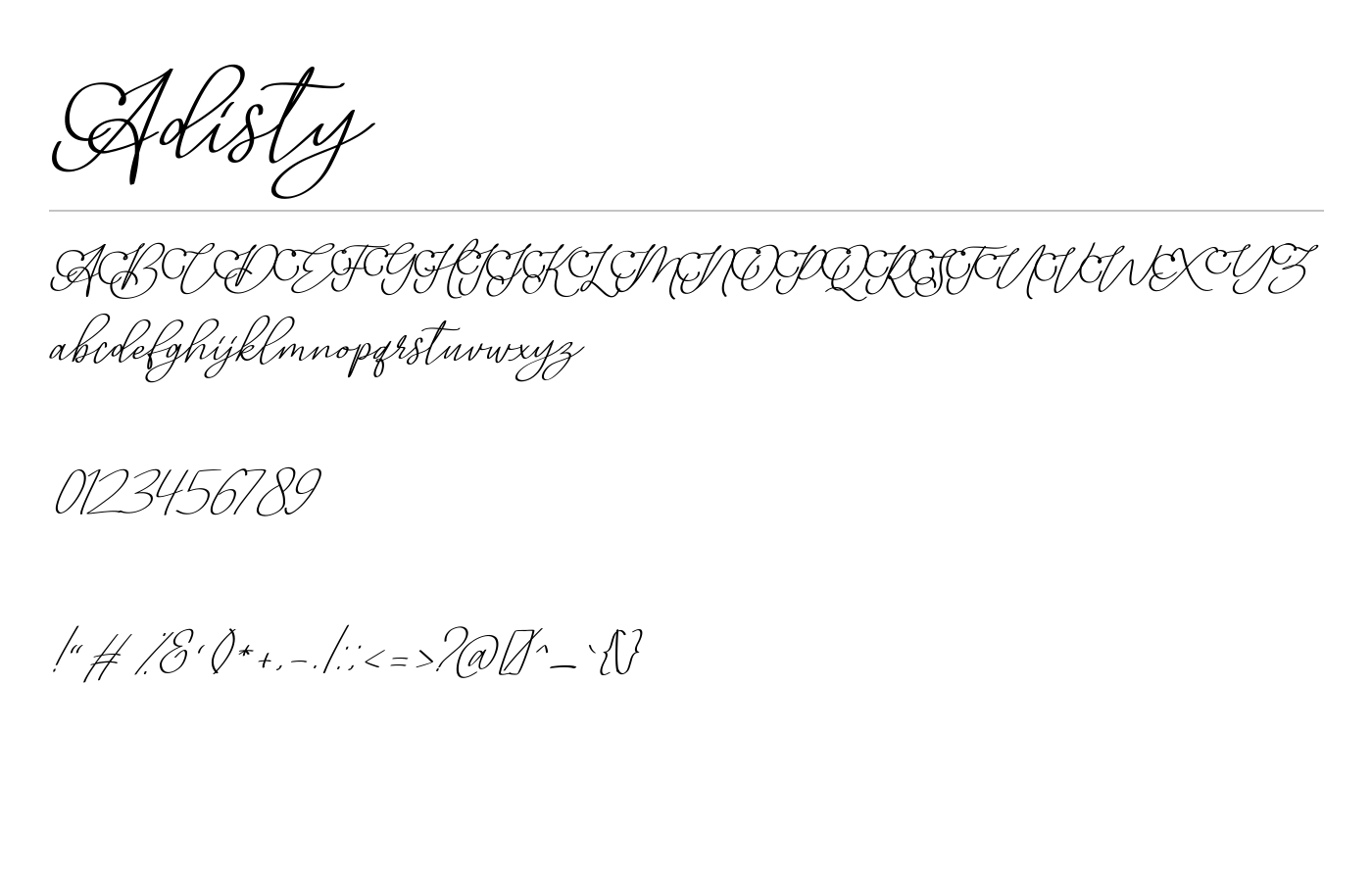
Adisty is an elegant and delicate script font characterized by its fine, flowing strokes and graceful curves, perfect for adding a touch of sophistication and romance. Its slender, calligraphic letterforms with subtle flourishes make it ideal for invitations, fashion branding, and luxury packaging where a refined, stylish aesthetic is desired. This font works best in display settings such as headlines or logos where its intricate details can be fully appreciated.
Adisty Font